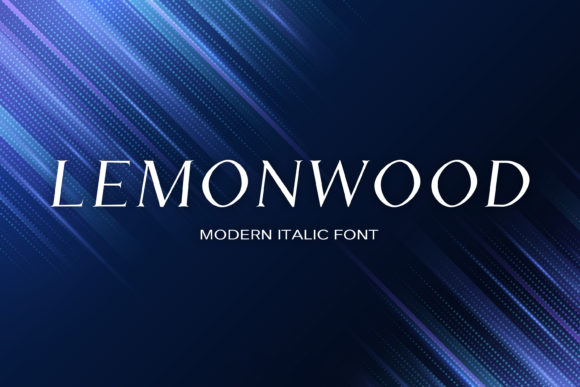
Lemonwood Font
Behold Lemonwood, a masterpiece inspired by traditional sign painting, infused with modern flair – a font that exudes elegance and dynamism. Created by the artistic hands at DmDesignsStoreArt, Lemonwood is a display font that is both clean and clever, delivering the perfect blend of classic and contemporary. Its sharp lines and smooth curves dance together in perfect harmony, inviting you to explore a world of creative possibilities.
Unlock the boundless versatility of Lemonwood, a font that shines in a myriad of applications. Whether you're crafting a captivating logo that demands attention or designing business cards that leave a lasting impression, Lemonwood has you covered. Its bold strokes and energetic flow make it the ideal choice for headlines that command attention and T-shirts that speak volumes. Let Lemonwood take your designs to new heights, transforming your creative vision into a tangible masterpiece.
Immerse yourself in the world of Lemonwood and discover a font that speaks to your soul. Its crisp and clean lines evoke a sense of sophistication, while its dynamic curves add a touch of playfulness and intrigue. Imagine your words adorned with this exquisite font, taking on a life of their own.
Lemonwood is not just a font; it's an experience. It's the perfect companion for designers who seek to make a statement, to leave an indelible mark on the world. With Lemonwood, your designs will radiate confidence, exuding a sense of professionalism and creativity. Embrace the power of Lemonwood and watch as your designs blossom into works of art.
Step into the realm of Lemonwood and let your creativity soar. Its wide range of applications knows no bounds, from branding projects that demand distinction to T-shirts that tell a unique story. This font is your gateway to a world of endless possibilities, where your ideas take center stage and leave a lasting impact.